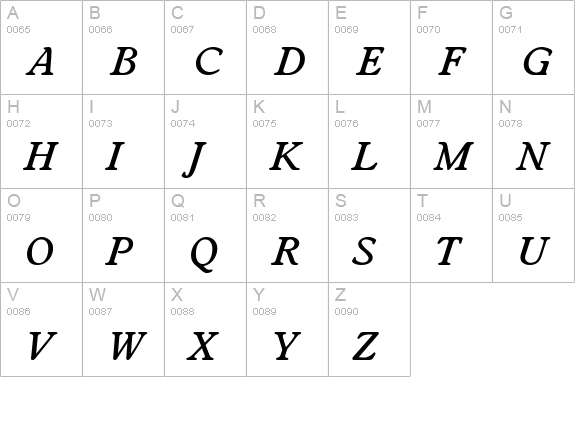
WorcesterSerial-Medium-Italic is a balanced, medium-weight, italic variant in the WorcesterSerial typeface family \xE2\x80\x94 well suited to sub-headlines, navigation, and balanced editorial work.
The WorcesterSerial-Medium-Italic font is a sleek and modern typeface that strikes the perfect balance between sophistication and readability. With its elegant slanted design, this font exudes a sense of style and professionalism, making it the ideal choice for a wide range of projects. Whether you're working on a branding project, creating marketing materials, or designing a website, WorcesterSerial-Medium-Italic will add a touch of flair to your work. Its medium weight ensures excellent legibility, while the italicized style adds a unique twist to your typography. Best of all, WorcesterSerial-Medium-Italic is available for free download at FontsMarket.com. This means you can easily access this premium font without breaking the bank. So why wait? Elevate your designs with WorcesterSerial-Medium-Italic today and make a lasting impression on your audience.